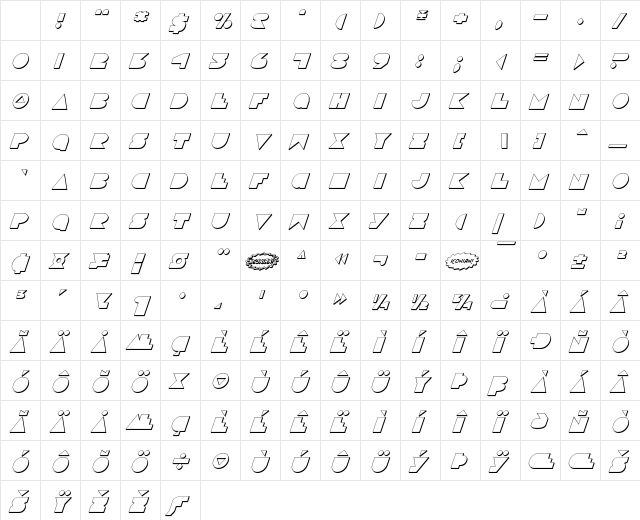
Complete Disco Deck Shadow Italic glyph index. Displaying only characters natively supported by Disco Deck Shadow Italic font.
Disco Deck is built around its visual character rather than neutral utility - its distinctive forms are designed to make an impression at display sizes. The slanted form adds forward momentum and visual energy.
Font Pairing: Pair with a clean neutral sans-serif for body copy to let Disco Deck's character lead without overwhelming the composition.
Pro Tip: Use Disco Deck exclusively at display sizes - it was designed to be seen, not read at length. Let a neutral companion handle body copy.